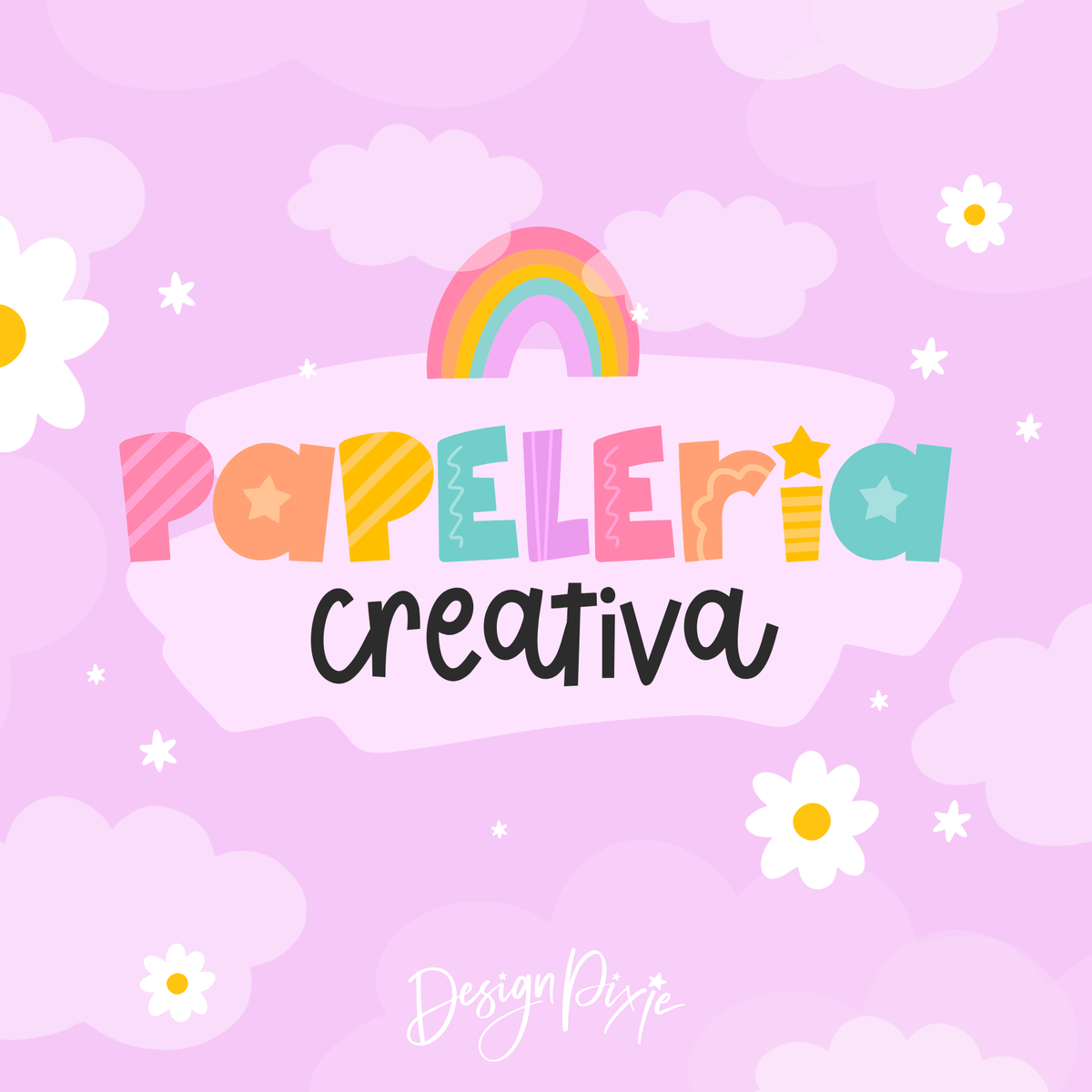
Paperia Font
Paperia is a bold decorative display font with playful patterns, chunky letterforms and loads of personality. Designed to make your typography stand out, this fun patterned font combines clean lowercase letters with eye-catching uppercase characters decorated with stars, stripes, spots and squiggles.
Paperia includes one character set with a mix of lowercase and uppercase letters. The lowercase letters are plain and simple, while the uppercase letters feature the decorative patterns, giving you an easy way to mix and match your typography and create a fun, custom look.
Paperia is a versatile display font for Canva, Cricut and Silhouette projects, small business branding, logos, apparel, stickers, stationery and digital designs. Its bold letterforms work especially well for headings, short phrases, quotes and eye-catching typography.